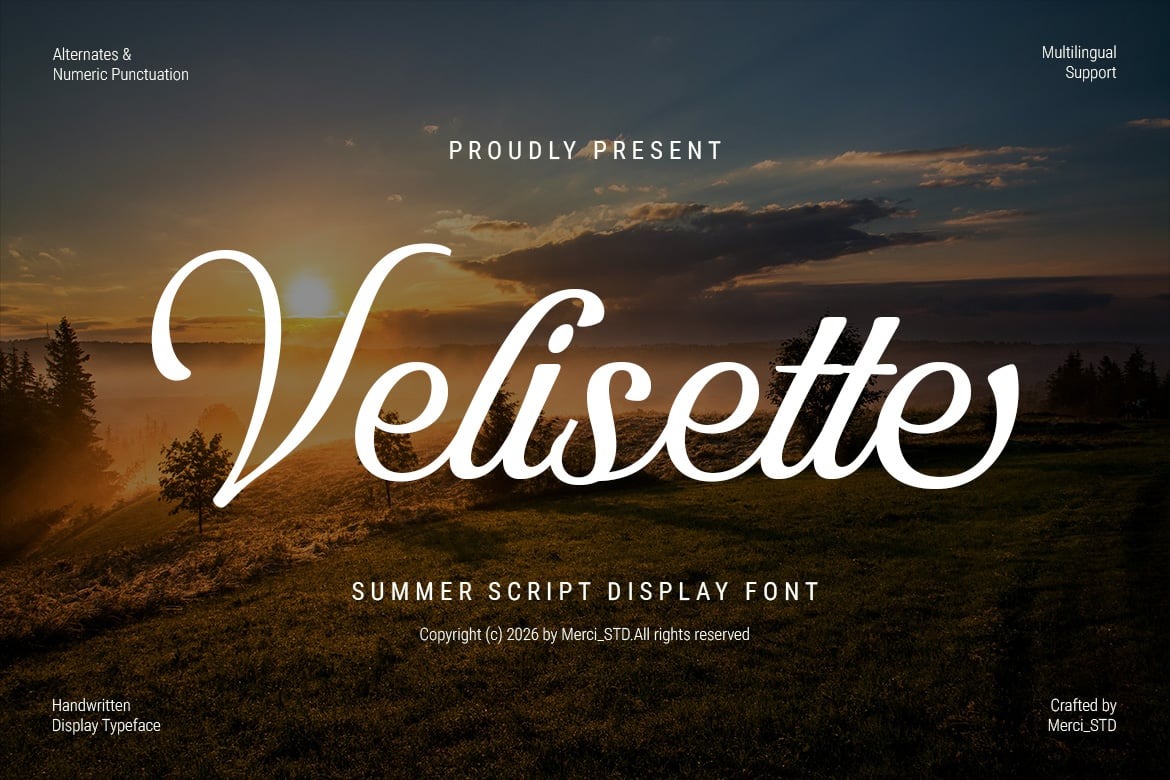
Velisette – Elegant Script Font
Velisette – Elegant Script Font is a flexible and reliable font created to fit multiple design needs, from branding and packaging to social media and editorial layouts. Velisette is a graceful handwritten script font inspired by warm summer days and elegant natural landscapes. Featuring smooth flowing strokes and beautiful ligatures, this typeface is perfect for branding, wedding invitations, beauty products, social media, logos, packaging, greeting cards, and lifestyle projects. Velisette brings a fresh, sophisticated, and timeless handwritten touch to every design.
Numbers & Punctuation
Ligature & Alternate Character
Unique Hand-Drawn Style